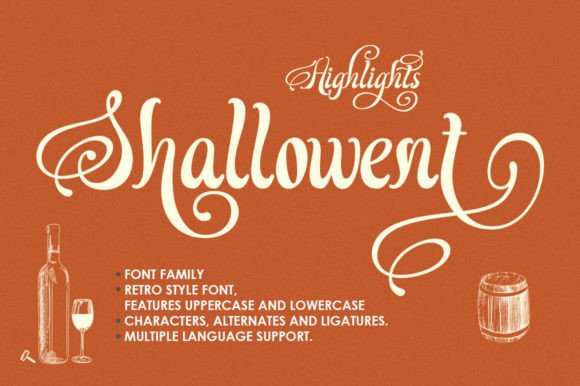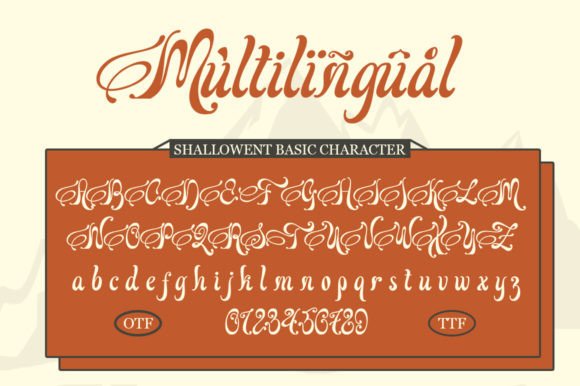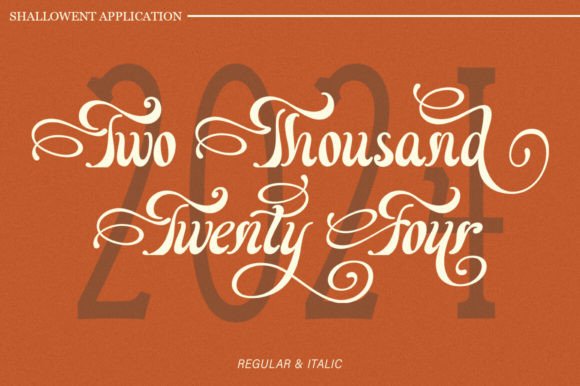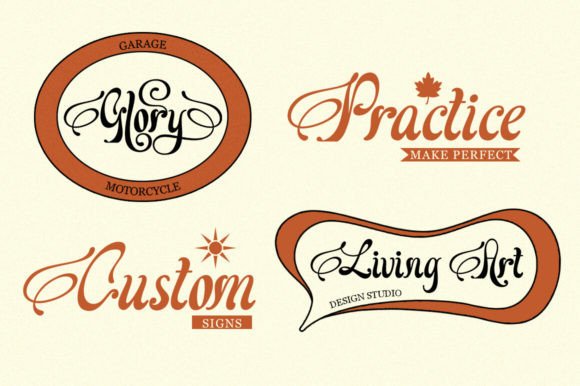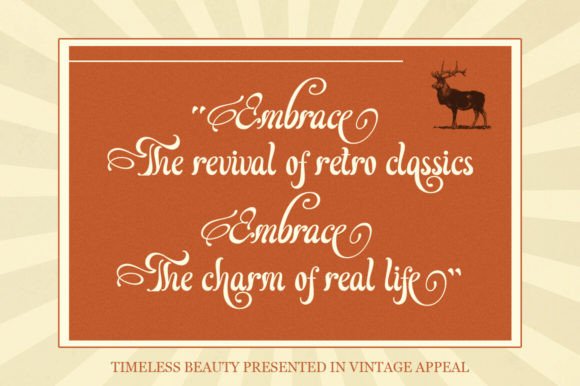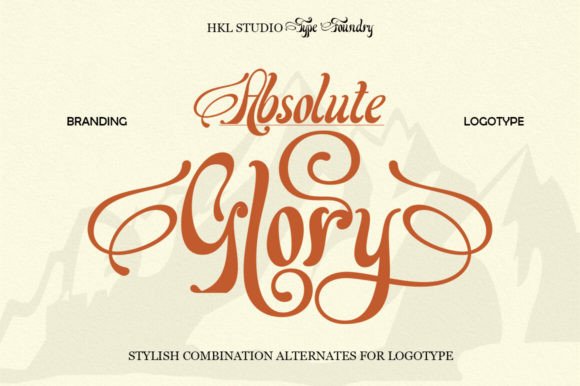
Introduction to Shallowent Font
Remember that moment when you’re working on a creative project and you need the perfect font to bring your design to life? You scroll through your font library, and nothing seems quite right. That’s where the Shallowent Font comes in – a stunning calligraphy font with a classic retro style that will transport your designs to a bygone era.
With its regular artistic swirls and slanted serifs, the Shallowent Font is a high-quality design resource that will add a touch of vintage charm to your projects. Whether you’re working on a free download or a paid design, this exclusive typeface is sure to elevate your work. And the best part? It’s available for download, making it a valuable asset for designers looking to add some extra flair to their designs.
- High-quality design with a unique, creative style perfect for various projects.
Honest Review: Shallowent Font
I recently stumbled upon the Shallowent Font and was excited to give it a try. As a designer, I’m always on the lookout for high-quality fonts that can elevate my creative project. The Shallowent Font did not disappoint.
- ✨ The font is incredibly versatile and can be used in a variety of design contexts, from logos to body text.
- ✨ The transparent background makes it easy to combine with other design elements and create visually appealing compositions.
However, I did encounter a few limitations. The font is a bit on the thin side, which can make it difficult to read at smaller sizes.
- ⚠️ The font may not be suitable for use in print materials where text needs to be read at a distance.
- ⚠️ The font’s thin lines can make it prone to aliasing when used in low-resolution designs.
Overall, I’m impressed with the Shallowent Font and would definitely recommend it as a design resource. While it has some limitations, its versatility and high quality make it a great choice for many creative projects.
Tips for Getting the Most Out of Shallowent Font
Experiment with different font sizes, colors, and combinations to achieve the desired look for your creative project. Use the transparent background to create visually appealing effects and designs that stand out.
Shallowent Font is suitable for a wide range of creative projects, including presentations, posters, infographics, and social media graphics. Its high-quality design makes it an excellent choice for any project that requires a professional and visually appealing look.
Can I use the Shallowent Font for a high-quality creative project?
Yes, the Shallowent Font is designed to be a high-quality design resource. Its clean and modern design makes it perfect for use in a variety of creative projects, from logos and branding to web design and print materials.
Does the Shallowent Font have a transparent background?
No, the Shallowent Font does not have a transparent background. However, you can use it with a transparent background image or design element to create a unique and eye-catching visual effect.